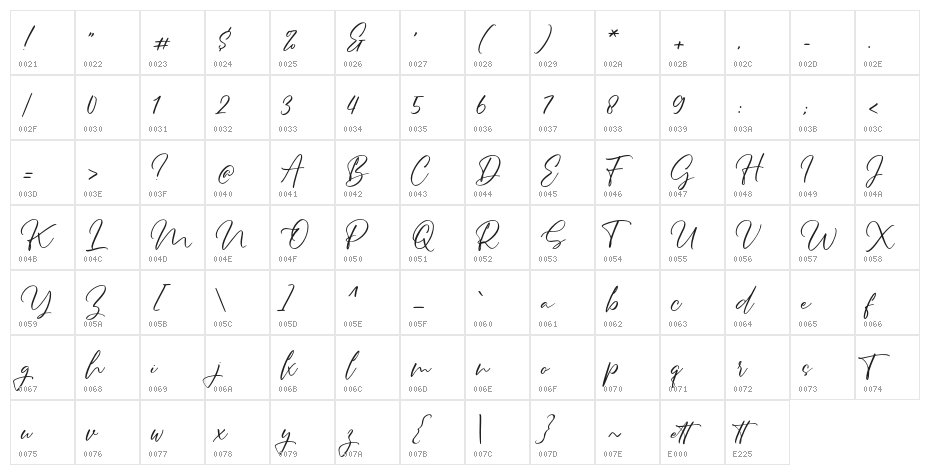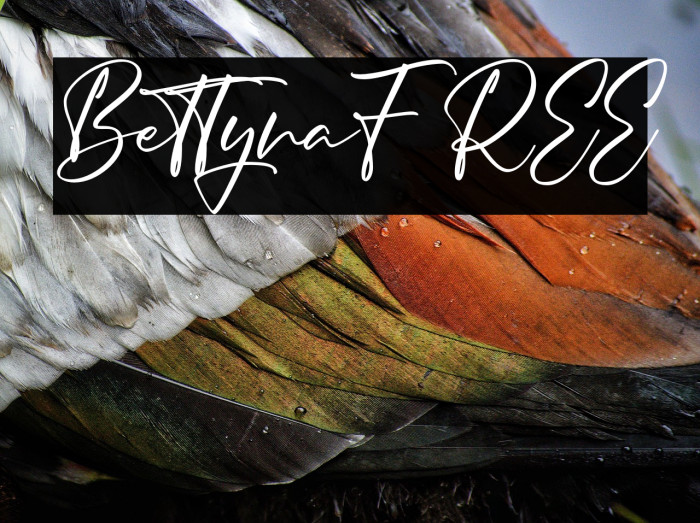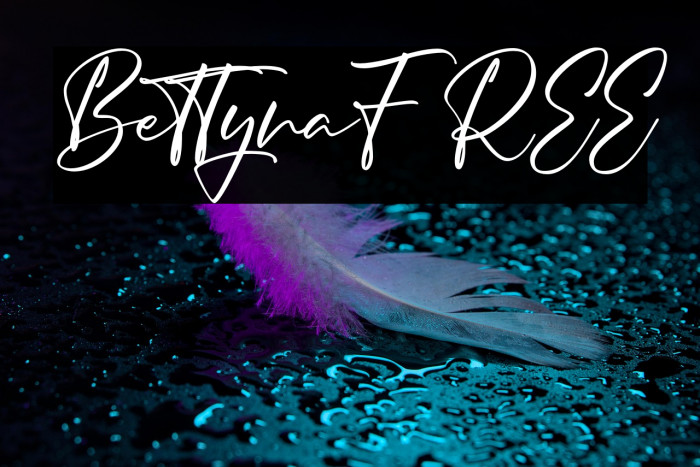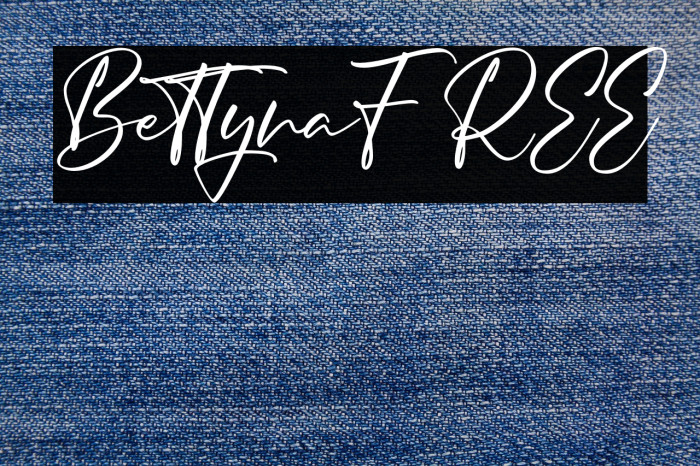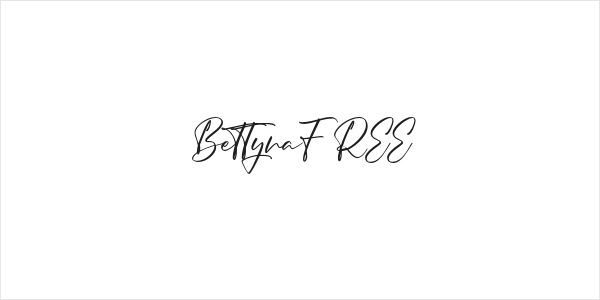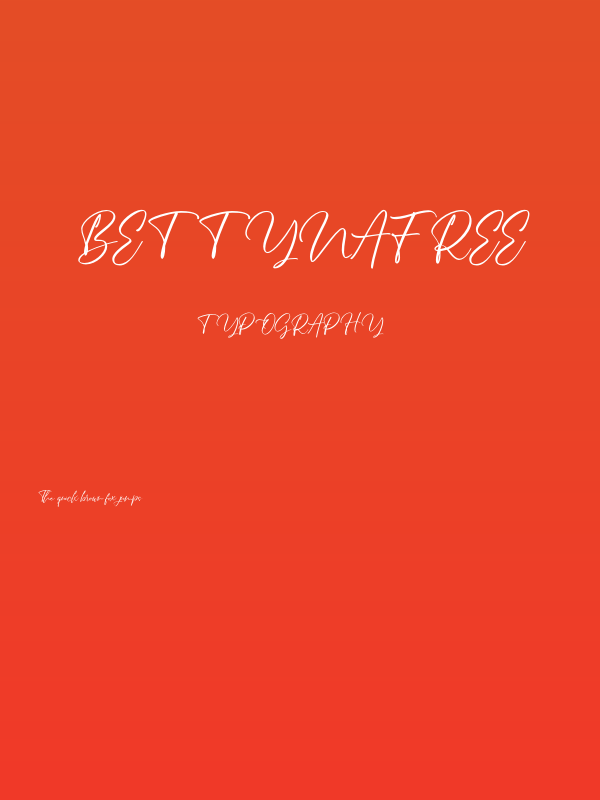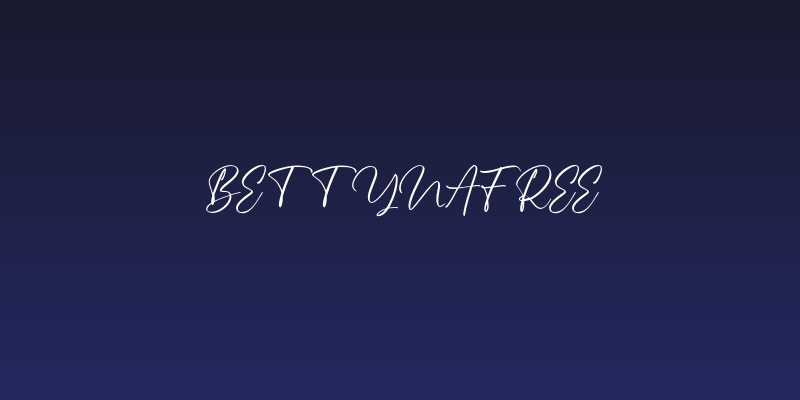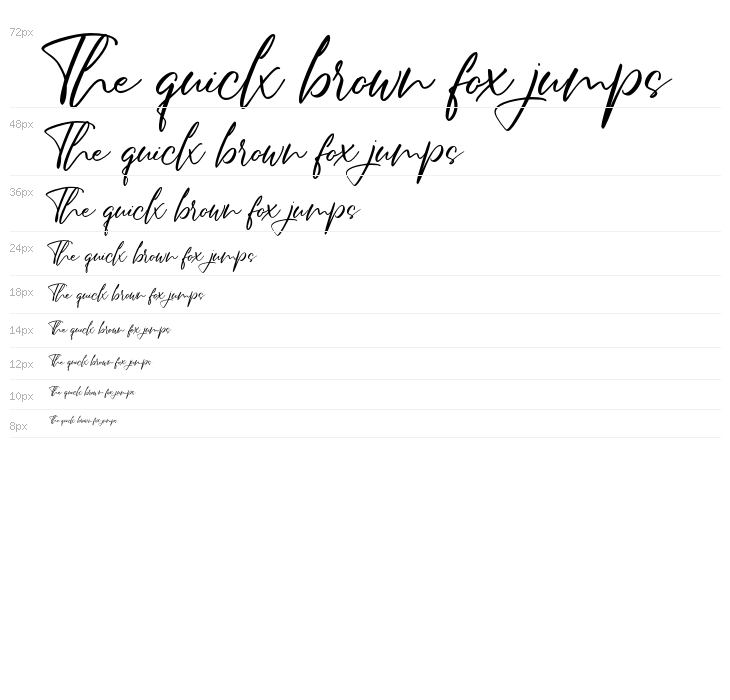
BettynaFREE Font
BettynaFREE Description
This font exudes a modern and elegant script style, characterized by its fluid and connected letterforms. The uppercase letters are tall and graceful, while the lowercase letters maintain a consistent flow, enhancing readability. The numerals are stylishly integrated, matching the overall cursive theme. Special characters are crafted with the same attention to detail, ensuring a cohesive look across all glyphs. The font's design is suitable for projects that require a touch of sophistication and personal flair.
| Proposed Projects | Ideal for wedding invitations, branding, greeting cards, and elegant logos. |